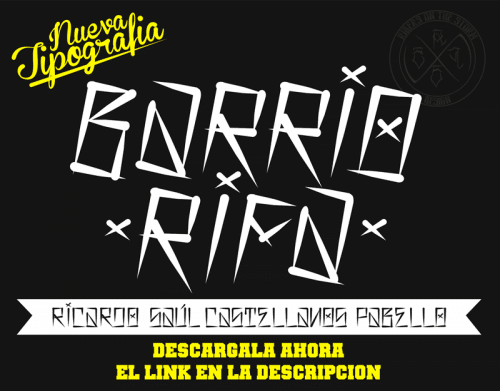
Barrio Rifa (Tattoo Font) is a typeface inspired by the style of letters of the urban culture of Cholos / Gangs, by Ricardo Saul Castellanos Pabello “Richie Mx” in the design studio “Riders on the Storm Design”